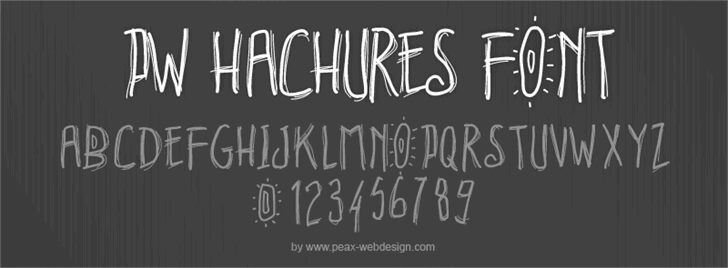
PW Hachures by Peax Webdesign is a free trash-style handwritten font whose towering, loosely drawn letters look scratched out with quick, repeated passes of a pen. Most forms are narrow and upright, yet their doubled contours wander, cross, and overshoot in different places, creating an open, wiry texture with visibly uneven widths and a scattering of quick stray marks across the lettering.
Independent music and youth-oriented labels are its clearest audience. Its rough sketchbook finish suits album artwork, event posters, T-shirt graphics, and skate branding tied to punk, garage rock, street art, or the untidy world of photocopied comics and DIY illustration.